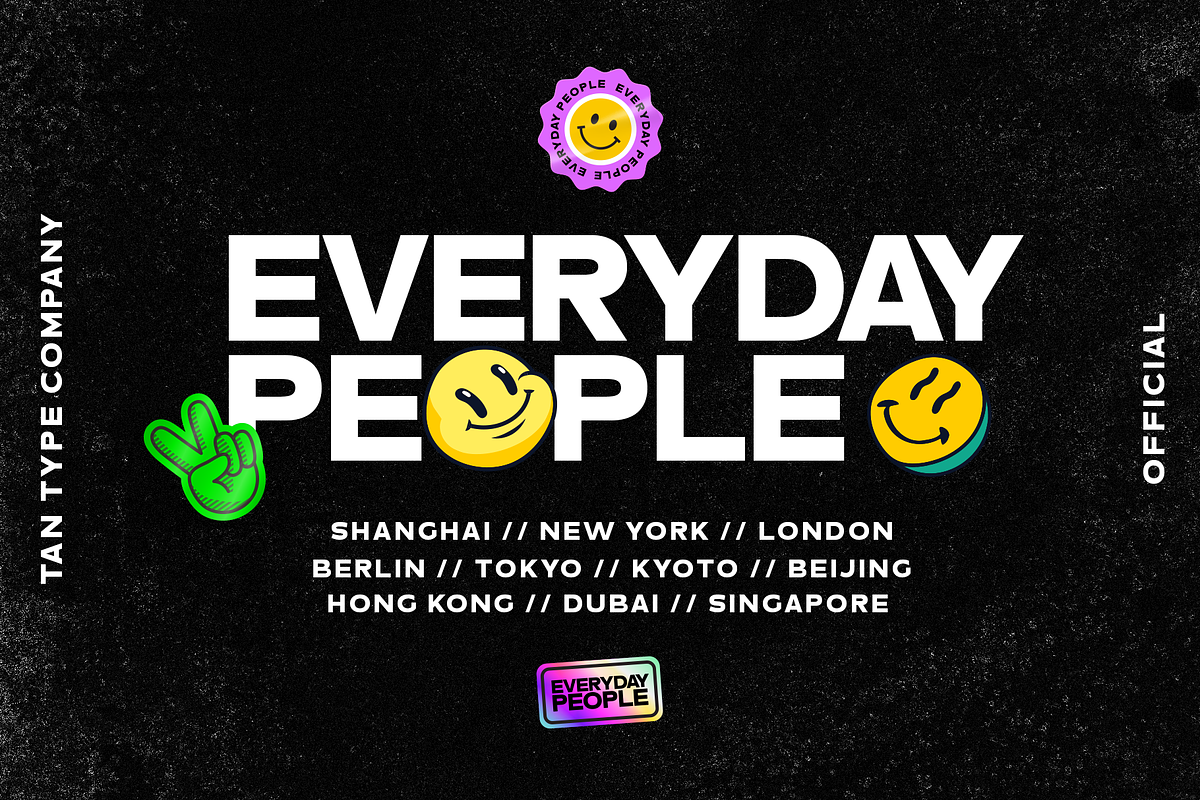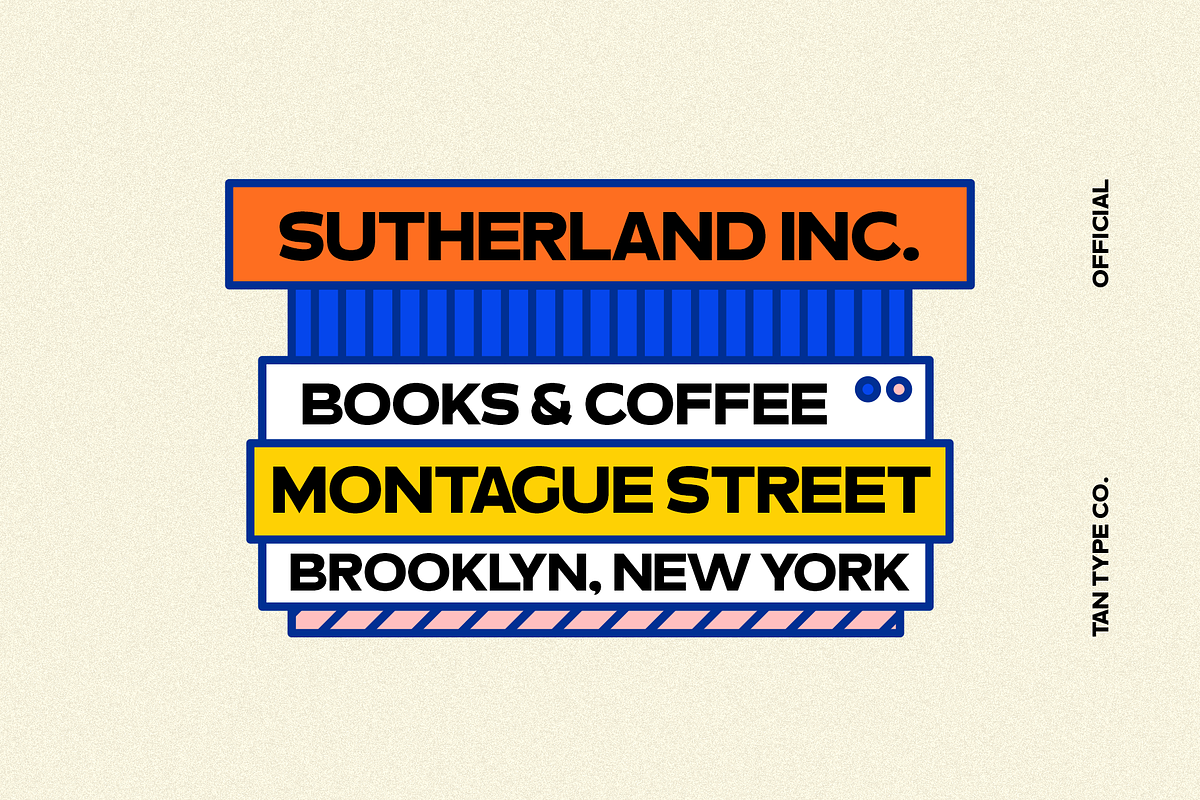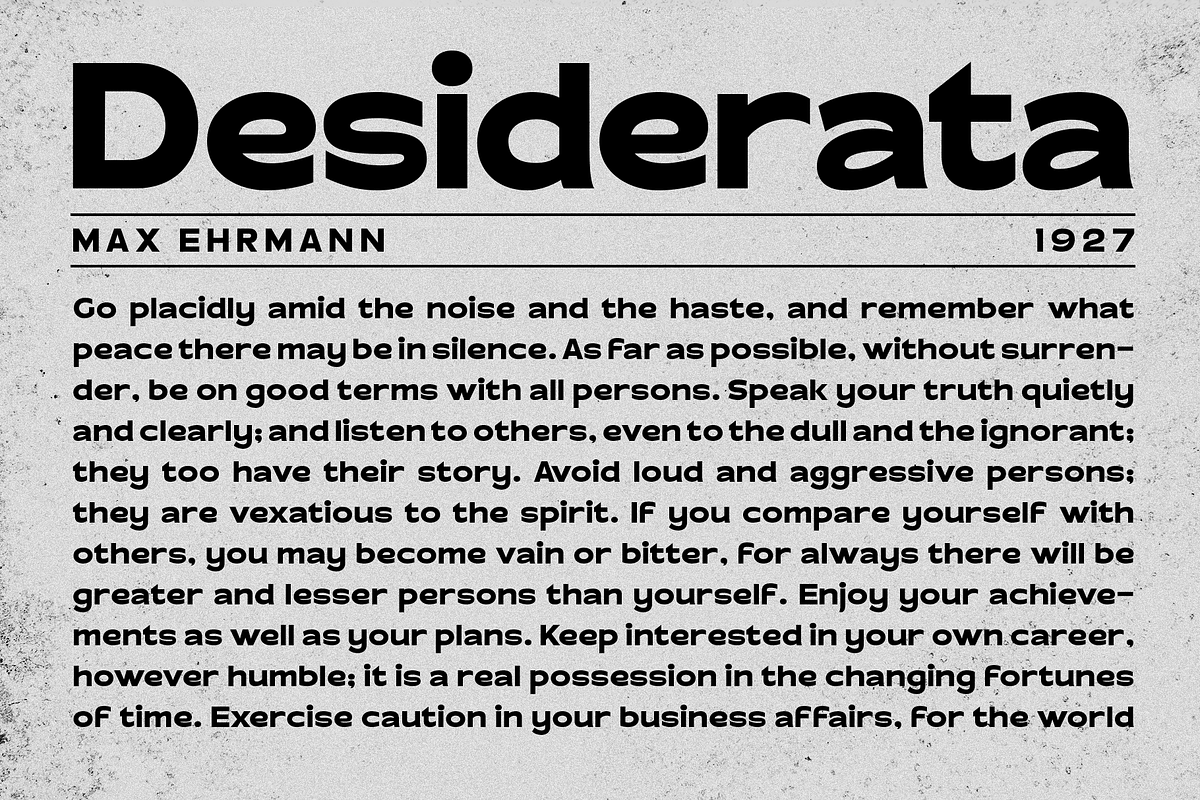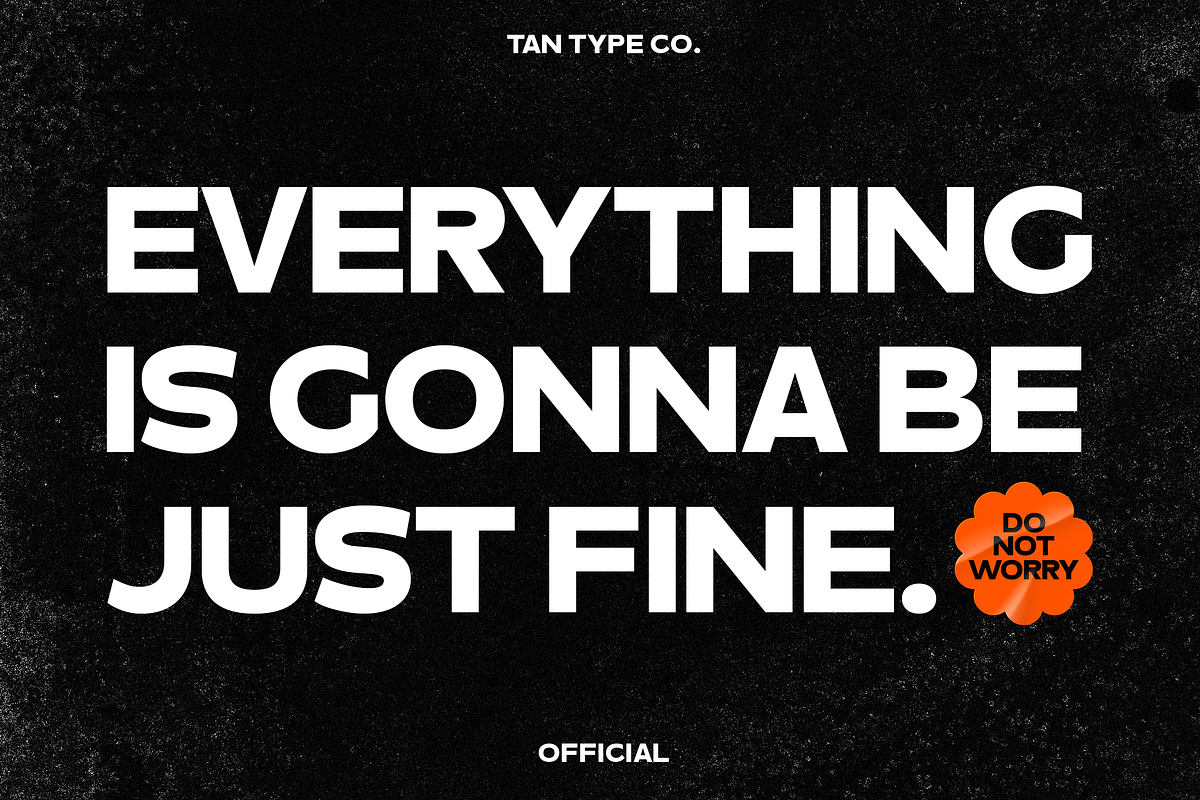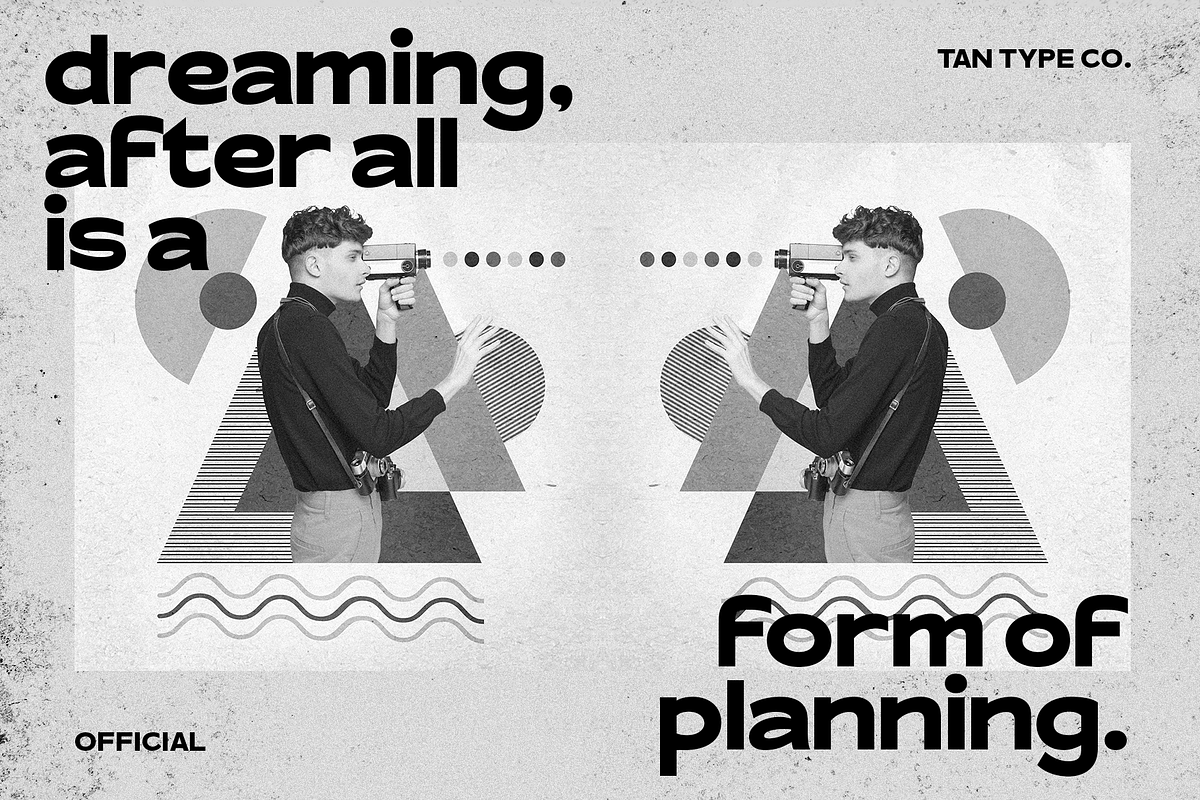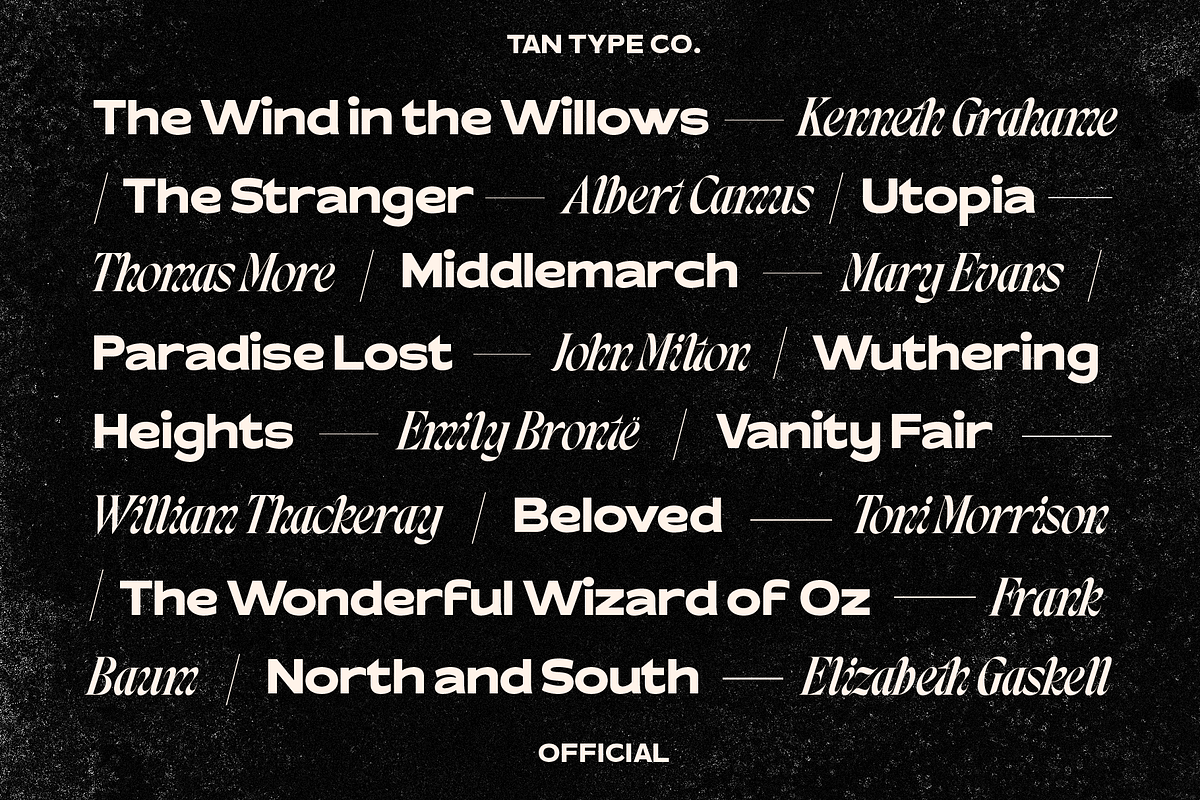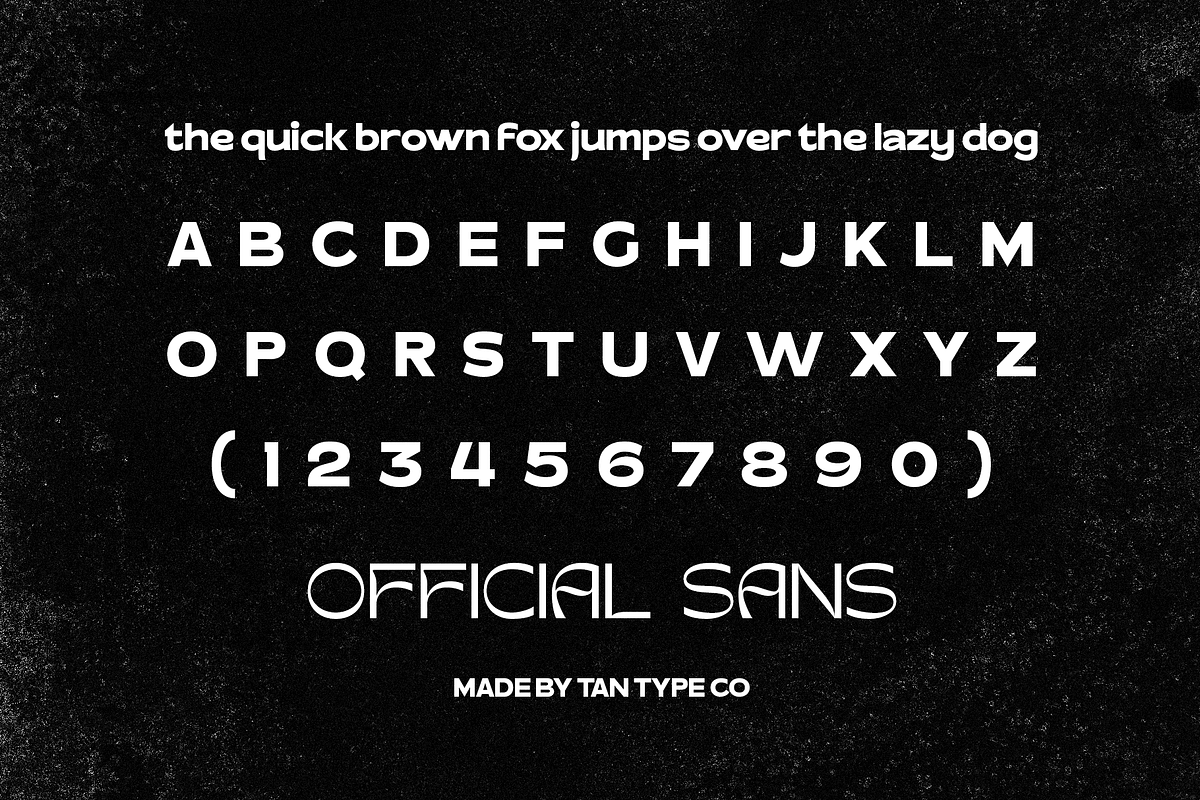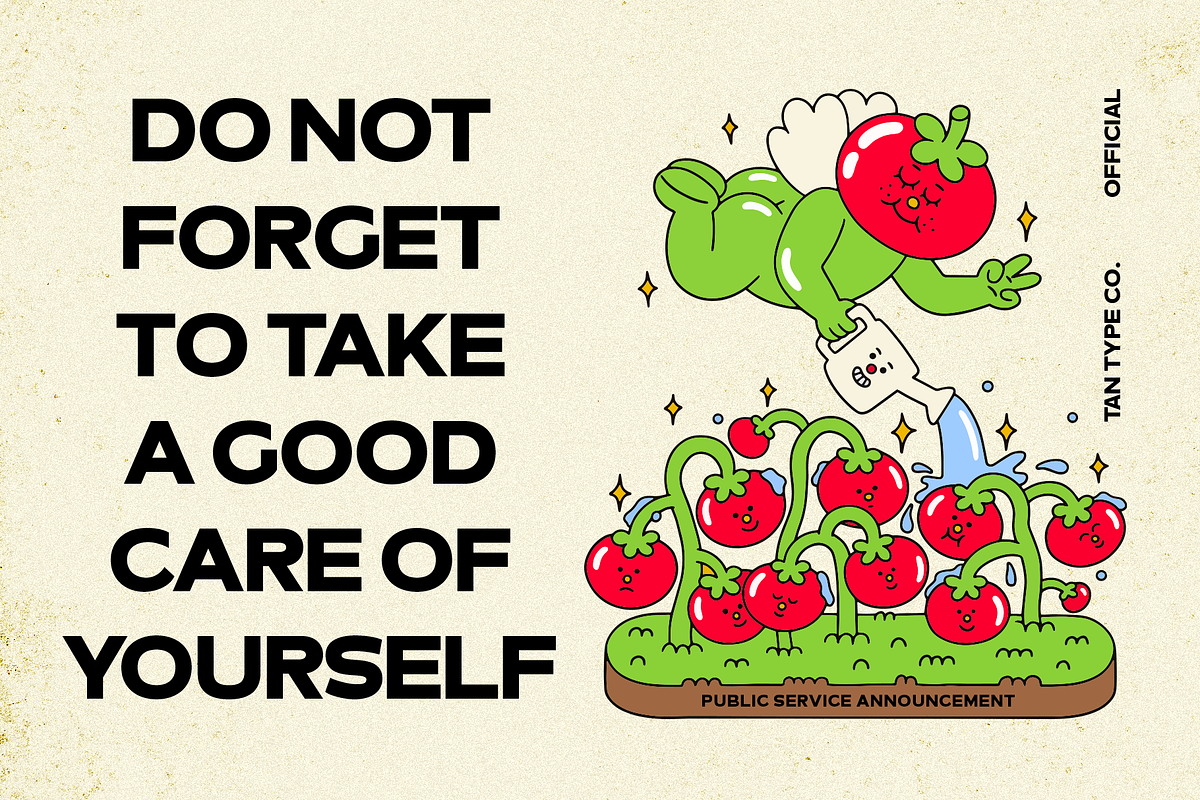
TAN - OFFICIAL
TAN - OFFICIAL is a sans serif thick typeface. Simple and clean but also gives a modern retro vibes. Began as our own internal typeface, with many people asking for it to be released, we redraw it and expand the typeface to include a lowercase. It also support multilingual.